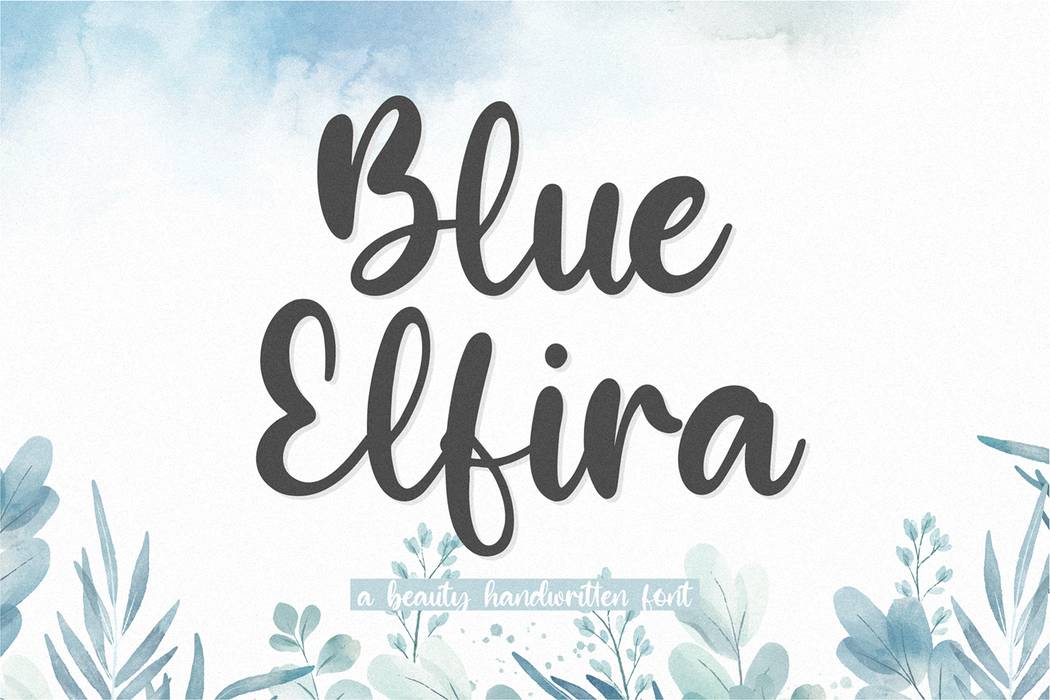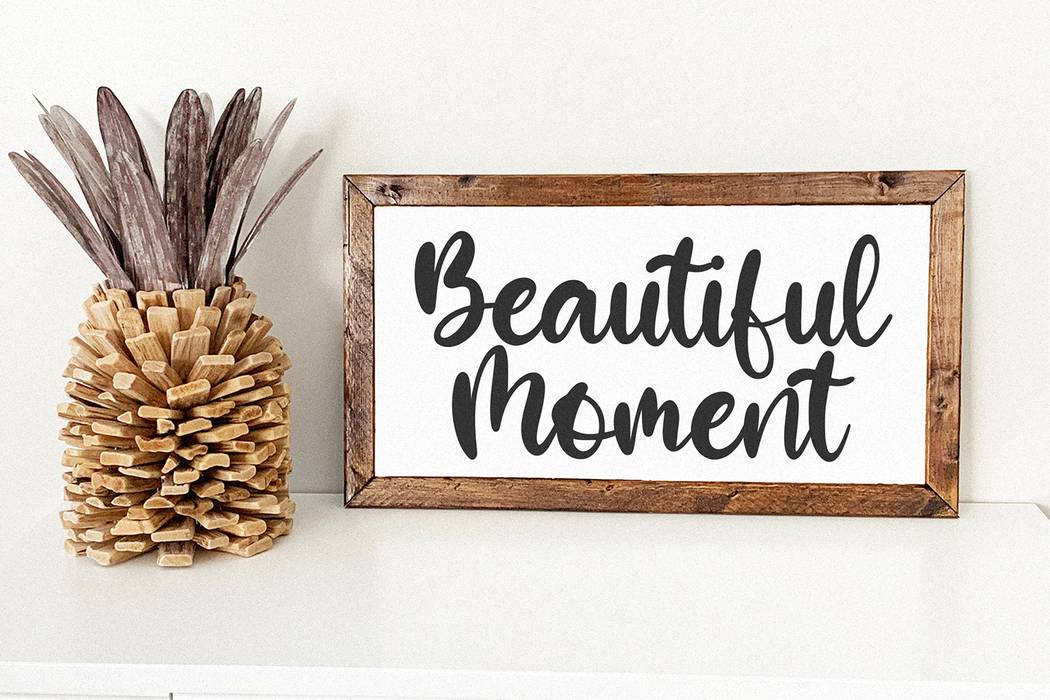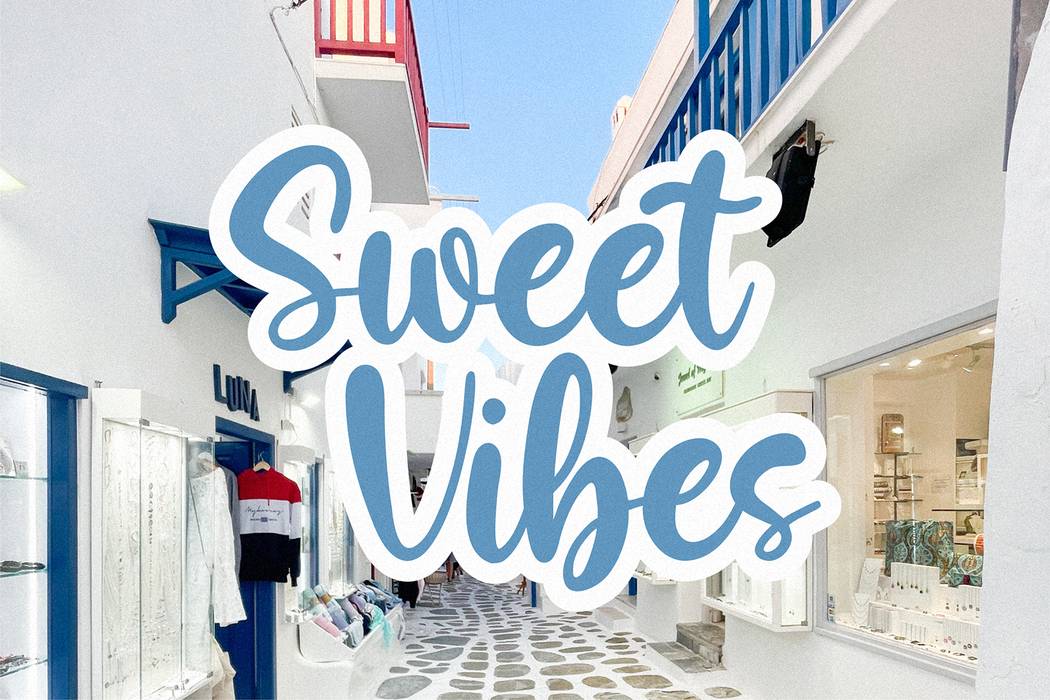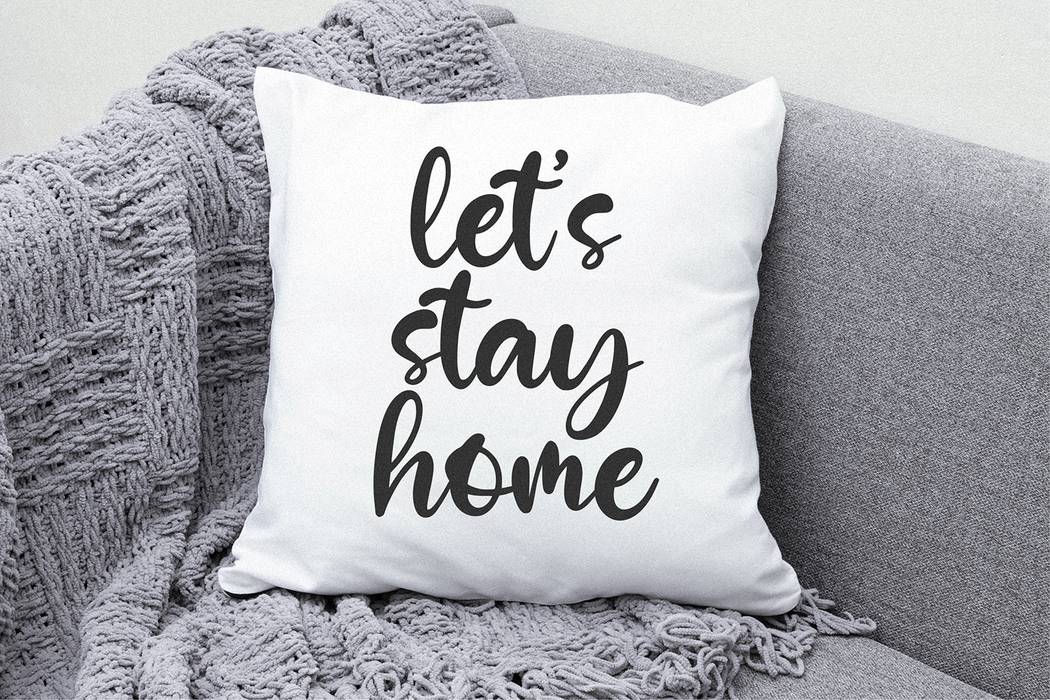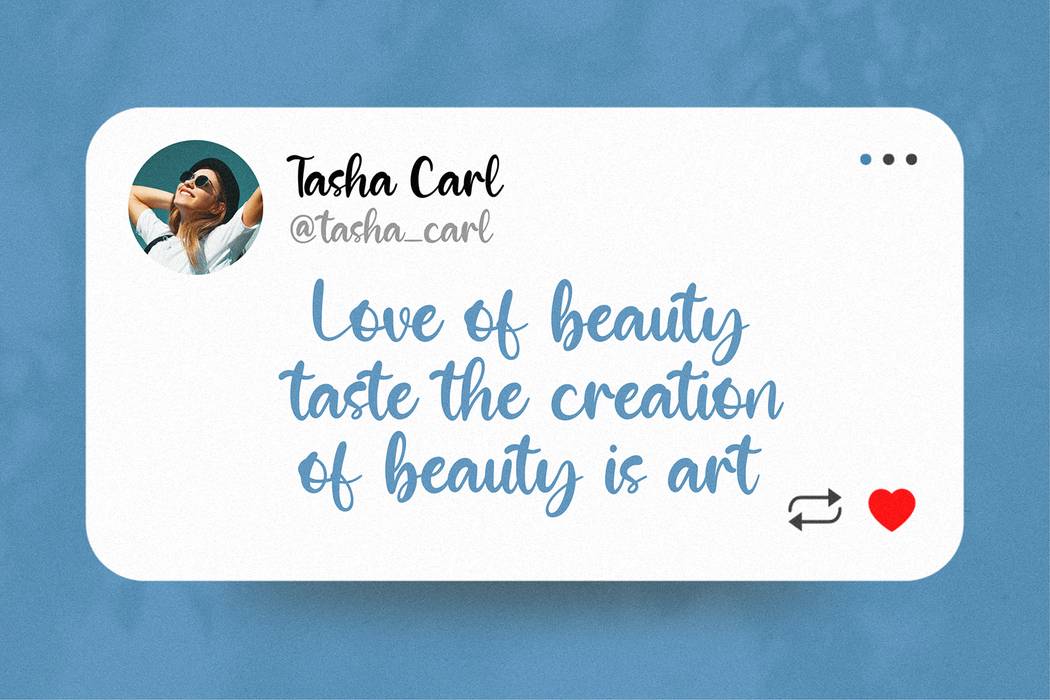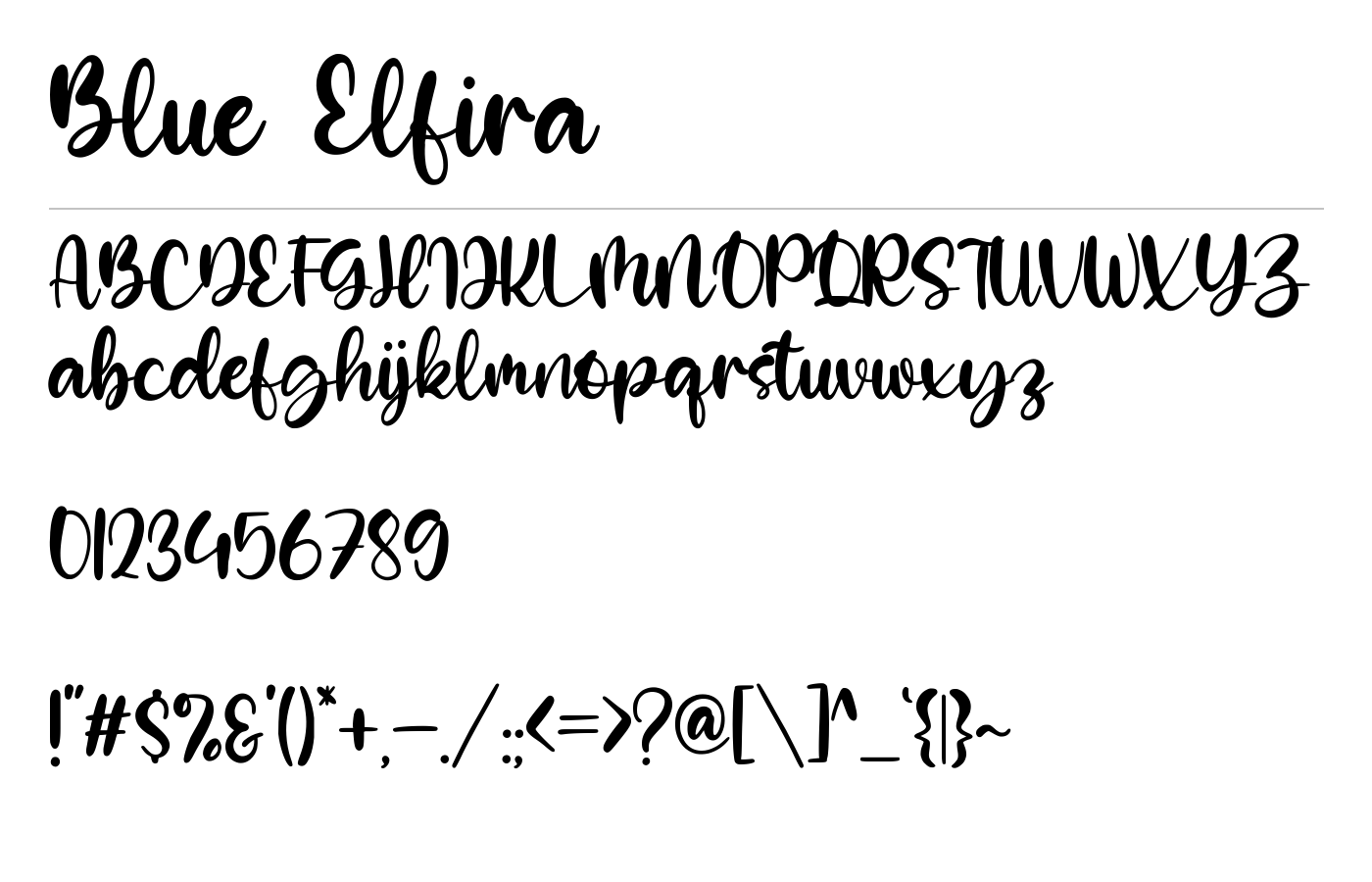
Blue Elfira is a lively and flowing script font with a friendly, handwritten feel. Its rounded, bold strokes and playful letterforms make it perfect for casual branding, invitations, and creative projects that seek a warm and approachable vibe. This font works beautifully in headlines and logos where a personal, cheerful touch is desired.
Blue Elfira Font
About Blue Elfira Font